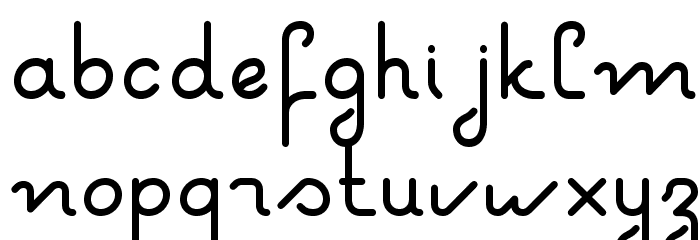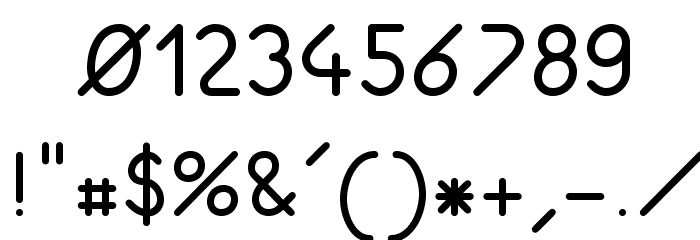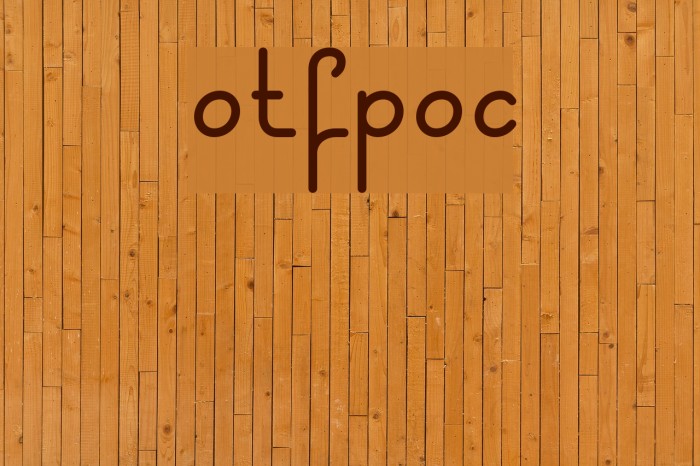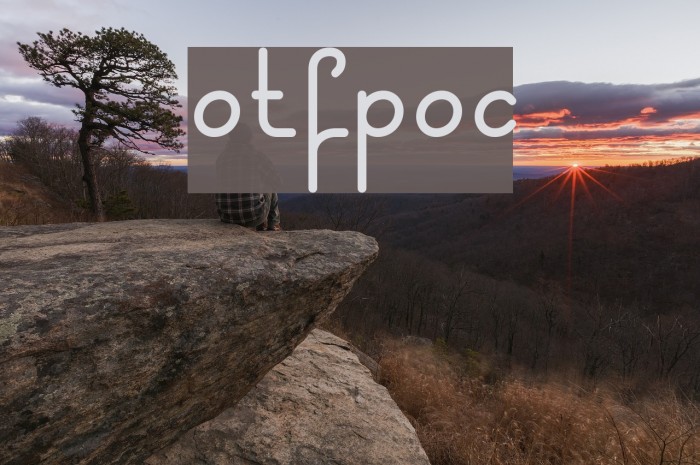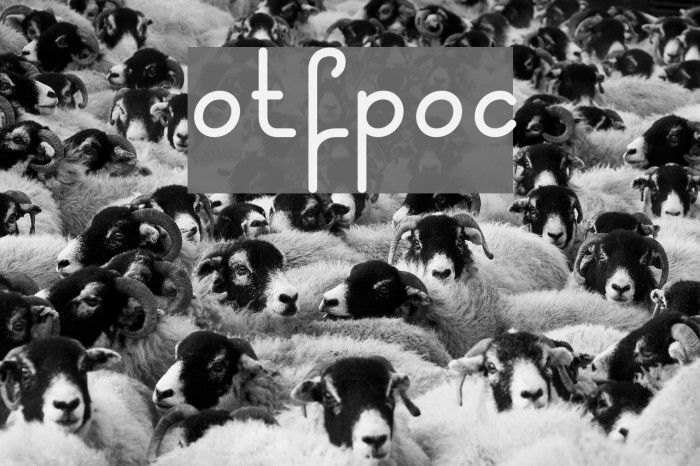
otfpoc Font
This font features a playful and modern design with a unique blend of geometric and cursive elements. The uppercase letters are characterized by clean, rounded lines and a consistent stroke width, giving them a friendly and approachable appearance. The lowercase letters incorporate more fluid, script-like curves, adding a touch of elegance and whimsy. Numbers and special characters maintain the same rounded and smooth style, ensuring consistency across all elements. The overall look is both contemporary and versatile, making it suitable for a variety of design applications.
A playful, modern font with geometric and cursive elements.
- Proposed Projects: Ideal for children's books, playful branding, creative posters, and modern web design.